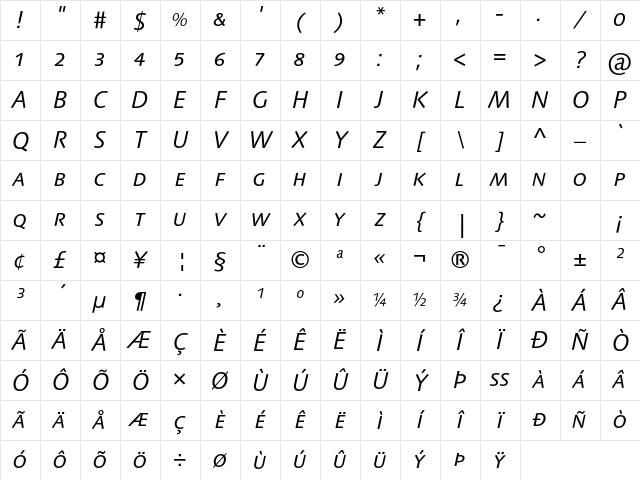
Complete LinotypeSyntaxSC Italic glyph index. Displaying only characters natively supported by LinotypeSyntaxSC Italic font.
LinotypeSyntaxSC is a composed and adaptable typeface that performs quietly and consistently across a wide range of design contexts. The slanted form adds forward momentum and visual energy.